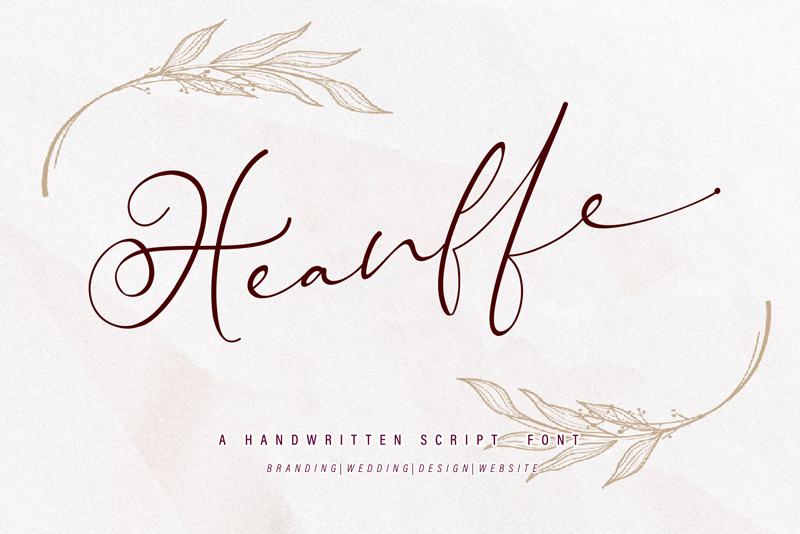
Heanffe is a one-of-a-kind handwritten font with a beautiful feel. To keep maximum real hand lettered, Font Heanffe mengandung ligatures berikut, : Alu, at, ch, dd, ee, ff, ll, oo, pp, ss, tt, ef, es, et, eth, ily, it, ith, om, ot, on, ou, ont, th, ov, ow, sh, st, ut, zz Just use your imagination, your project will become more alive and look Elegant than ever with one of the Heanffe font. Feel free to play with all the whole alternates! Heanffe also includes full set of uppercase and lowercase letters, multilingual symbols, numerals, punctuation. The font has smooth wet ink texture, so would be perfect for all design. You can make a greeting card or a package design, or even a brand identity, craft design, any DIY project, book title, wedding invitation, identity card, packaging, Website or any purpose to make your art / design project look pretty and trendy. Thanks for checking out my store, and feel free to get in touch if you have any questions! thomasaradea@gmail.com Download Fullversion: https://www.creativefabrica.com/product/heanffe/ https://crella.net/product/heanffe/ https://thehungryjpeg.com/product/3566251-heanffe https://graphicriver.net/item/heanffe/23769062 More... |